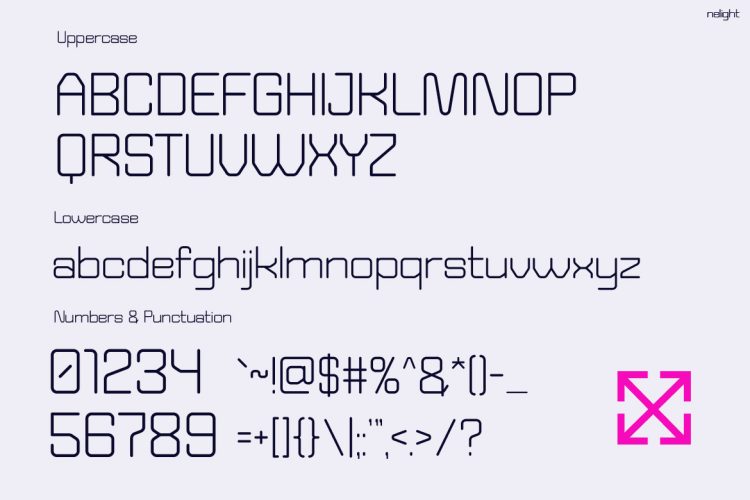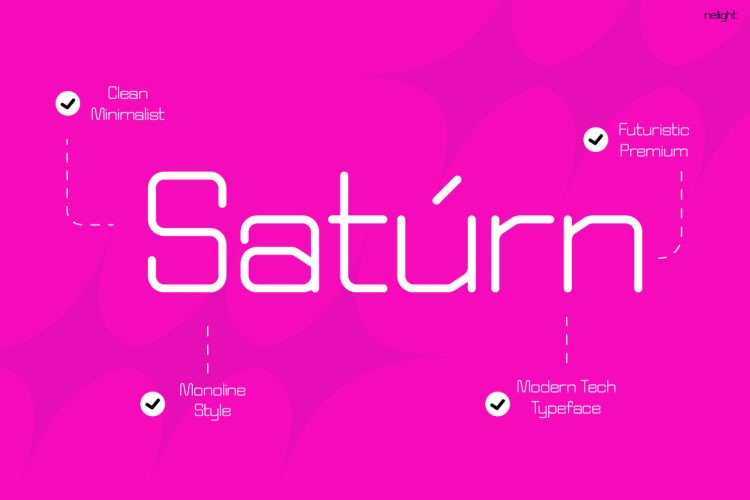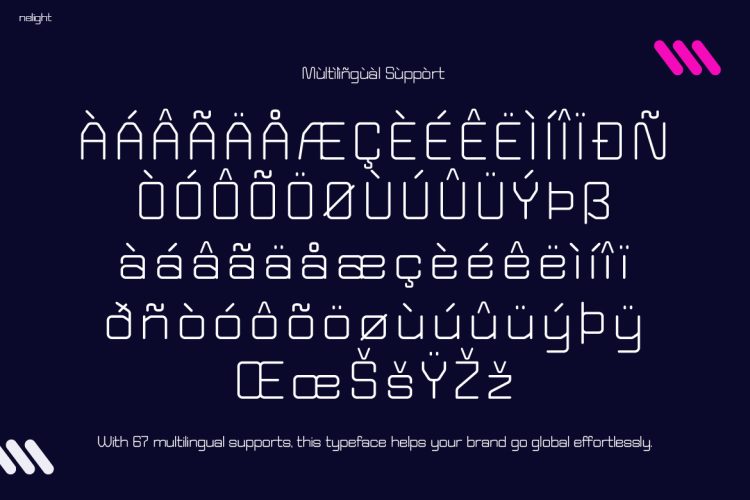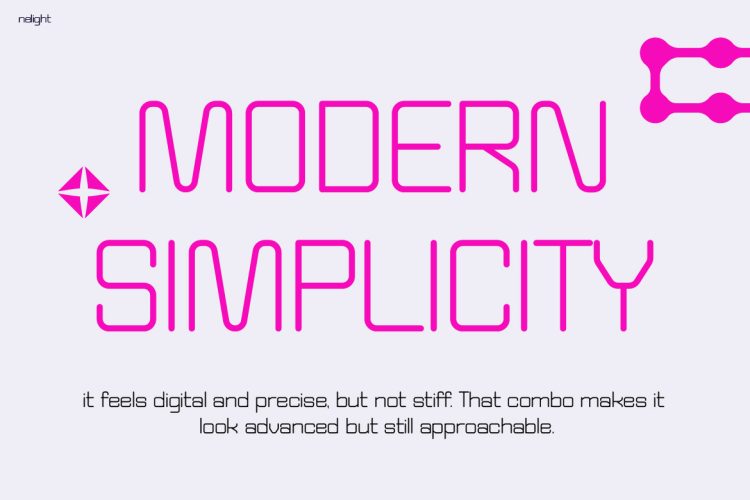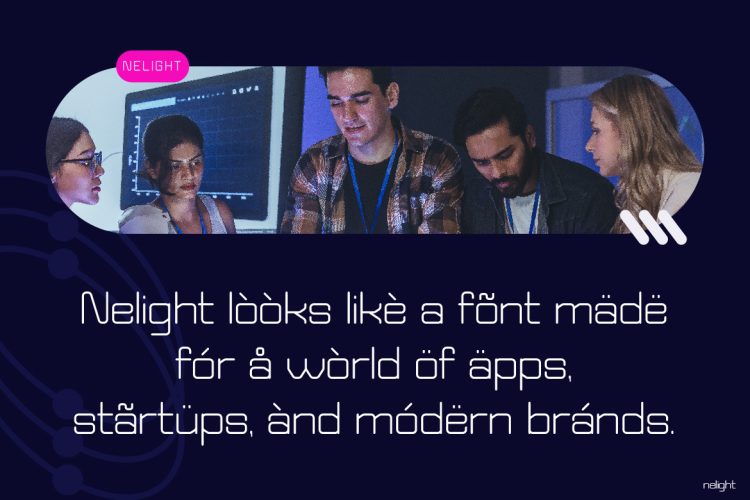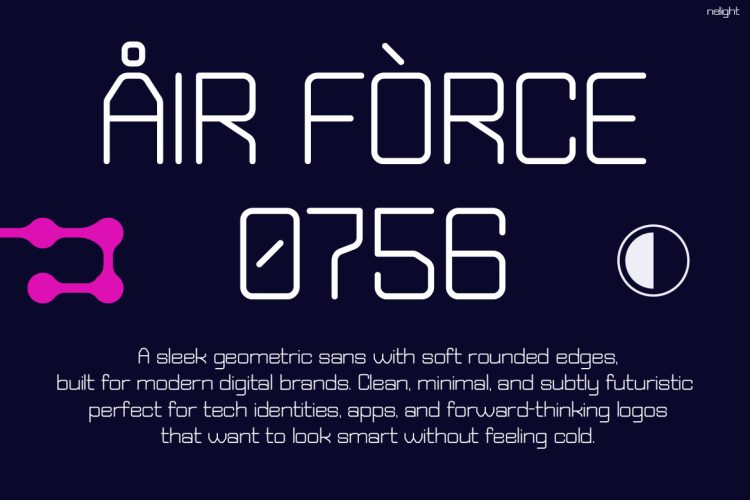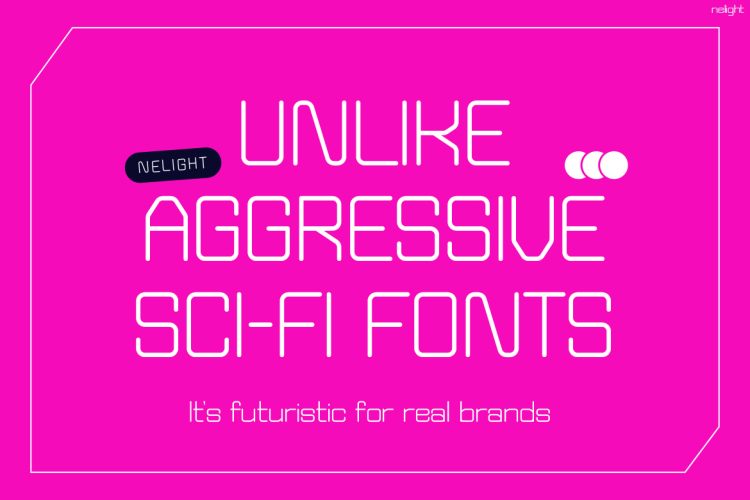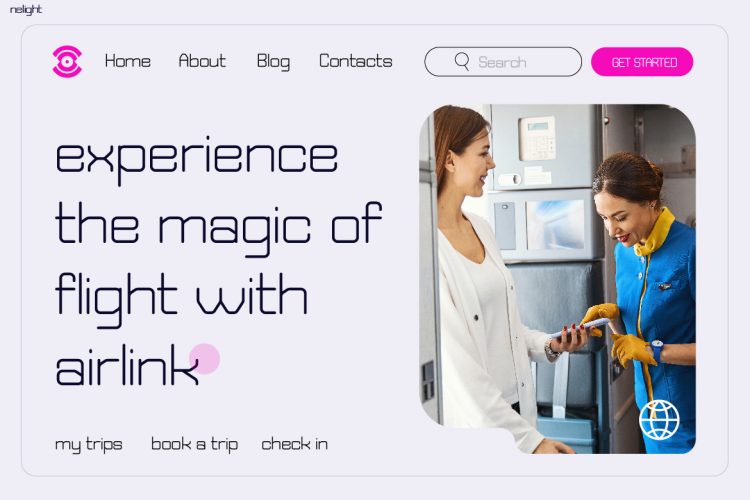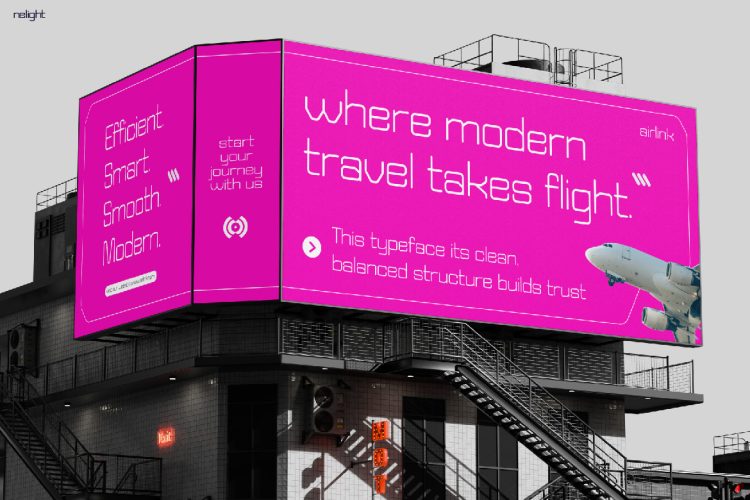
Futuristic Fontย NELIGHT โ Futuristic Clarity for Modern Digital Brands
Futuristic Font NELIGHT delivers a clean geometric sans serif that blends futuristic character with everyday usability. This font captures attention through smooth rounded edges, precise spacing, and distinctive sci-fi details that feel modern without becoming extreme. NELIGHT presents a confident visual rhythm that keeps text readable while projecting innovation. Its balanced structure, open shapes, and consistent strokes help designers create layouts that feel sharp, intelligent, and future-ready. Instead of relying on aggressive forms, NELIGHT uses subtle geometry to communicate progress, technology, and clarity. As a result, it works perfectly for digital screens, branding systems, and large-scale displays where clarity and style matter equally.
What Makes NELIGHT Stand Out
Futuristic Font NELIGHT combines aesthetic precision with strong functional performance. Designers can rely on its rounded geometry to create a friendly yet futuristic tone that feels accessible across many platforms. The font supports 67 languages, enabling global communication without breaking visual consistency. Carefully crafted letterforms maintain legibility in both uppercase and lowercase settings, making NELIGHT suitable for headlines, UI components, navigation systems, and promotional graphics. Its clean proportions allow brands to look innovative, minimal, and confident without sacrificing readability. Whether used on websites, apps, posters, or billboards, NELIGHT keeps messages clear and visually engaging.
Who Should Use Futuristic Font NELIGHT
Futuristic Font NELIGHT fits tech startups, SaaS platforms, UI/UX designers, branding studios, and digital agencies that want a modern and forward-thinking identity. Product designers and creative entrepreneurs can use it to strengthen visual storytelling across interfaces and marketing materials. NELIGHT also suits industries such as technology, aviation, fintech, AI, gaming, crypto, science, and modern transportation. Social media designers and advertisers benefit from its clarity and strong presence, especially in landing pages, app designs, packaging, and large outdoor media.
Bring a Future-Driven Look to Your Brand
Futuristic Font NELIGHT helps brands communicate innovation, precision, and confidence through typography. If you want a font that looks modern, works globally, and performs across digital and print media, NELIGHT delivers exactly that. Upgrade your visual identity, enhance user experience, and let your typography speak with futuristic clarity.